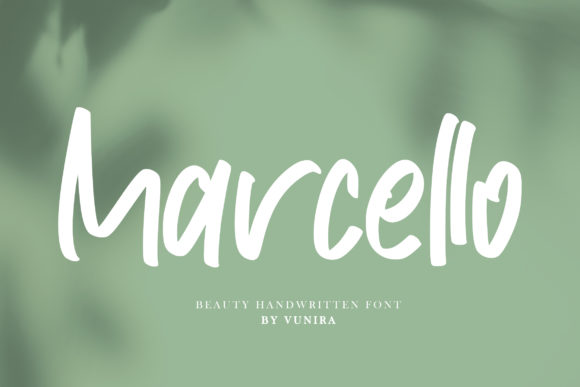
Introducing Marcello Font, a timeless and friendly handwritten font crafted with the utmost care using a brush pen. Its clean and slightly quirky nature makes it the perfect choice for all your creative endeavors.
Unleash your creativity with Marcello Font, the ultimate choice for beauty salons looking to make a lasting impression. Designed to capture the essence of beauty and elegance, Marcello's graceful strokes will add a touch of sophistication to your branding, social media, and marketing materials.
With Marcello at your fingertips, you can effortlessly create stunning logos that reflect the essence of your beauty salon. Its versatile nature allows you to explore a wide range of styles, from classic and timeless to modern and chic.
Elevate your social media presence with Marcello's enchanting charm. Its captivating curves and flowing lines will transform your posts and stories, capturing the attention of your audience and leaving them mesmerized.
Marcello is more than just a font; it's an artistic masterpiece that reflects your passion for beauty. Its every stroke evokes a sense of elegance and refinement, making it the perfect choice for crafting stunning invitations, cards, and other promotional materials.
Don't miss out on the opportunity to make your beauty salon shine with Marcello Font. Embrace its timeless beauty and let its captivating strokes weave their magic into your creative projects.